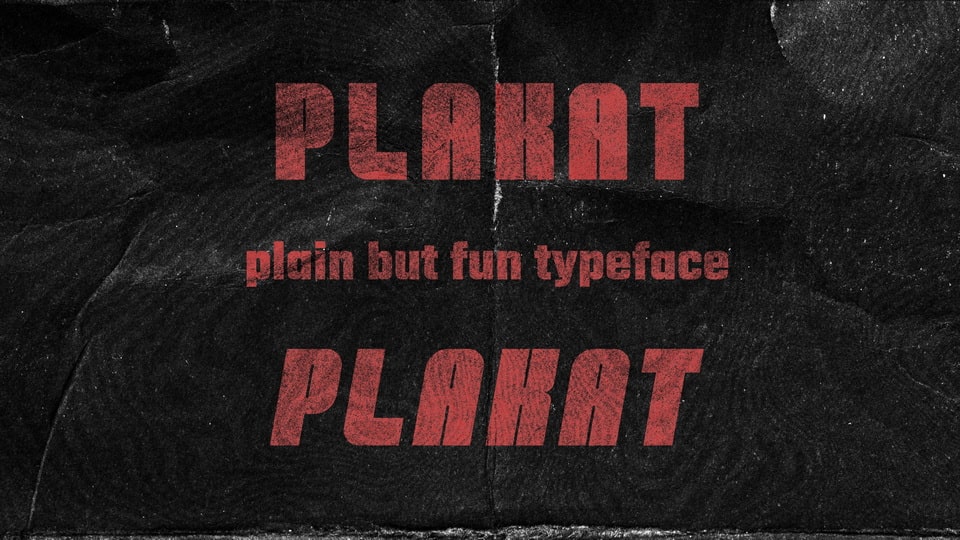
Feb 3, 2025DisplayPlakat Font Plakat is a bold yet fun handmade custom font family. With its impact look the font is great for posters, flyers, advertisements. Font DetailsDesigned by: Emirhan KayarWebsiteLicense: Free for commercial use Download Plakat FontFile size: 8.56 KBCreated: February 16, 2025Updated: February 16, 2025 Download Explore similar fonts Endure Font Elviro Font Power Square Font Urbanis Font Maritime Societies Font Bodygo Font # Bold# Geometric# Heavy# Industrial# Strong